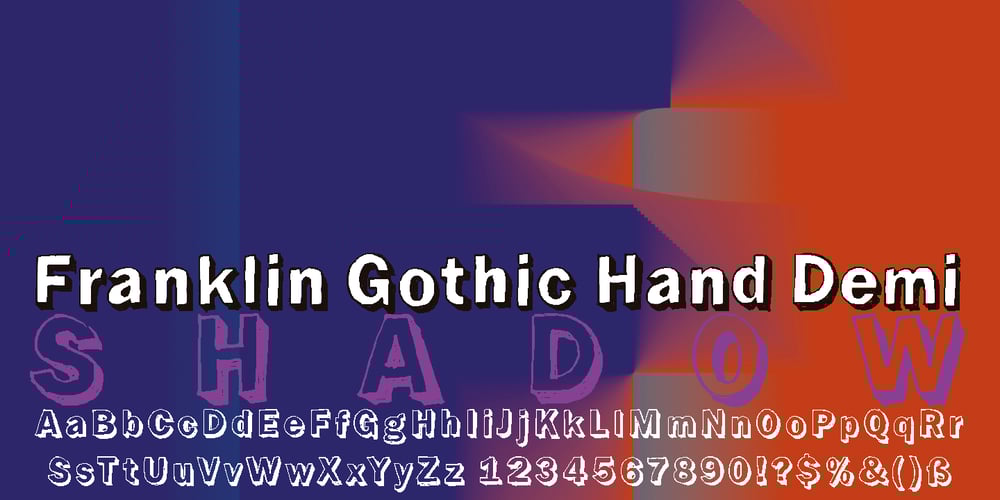
Franklin Gothic Hand Demi Shadow
Franklin Gothic Hand Demi Shadow font
Franklin Gothic Hand Demi Shadow Font Family was designed by Gert Wiescher and published by Wiescher Design. Franklin Gothic Hand Demi Shadow contains 1 styles and family package options. Franklin Gothic Hand Demi Shadow is another one in my series of hand-drawn fonts from way back in time – before computers changed the way we worked in advertising. This one was especially used for what we called “pork-belly-ads”: ads for food-stores! I think it is very useful for all kinds of advertising that demands a lot of bang! Your powerful typedesigner Gert Wiescher